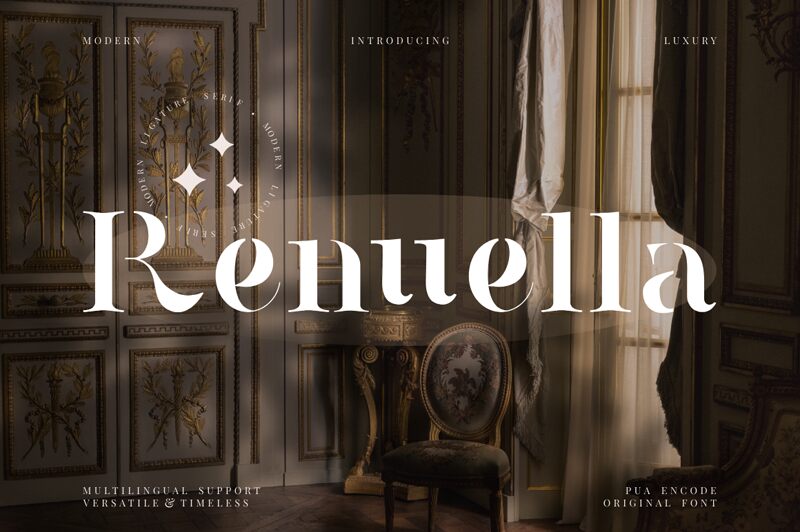
Renuella font family by FinTypeStudio consists of 2 font styles with a contemporary twist on a traditional serif style. Modern, luxurious, elegant, and sophisticated, this font family presents a refined look combined with some unusual touches taking its ordinary literal look to the next level. Its simplicity and understated charm ensure a timeless appeal and versatile applications.
Book covers necessitate a simple yet elegant title or author name and a stronger block of informative text which you can easily add with Renuella. Use it for business cards and branding designs, online advertisements, magazines and editorials, etc.